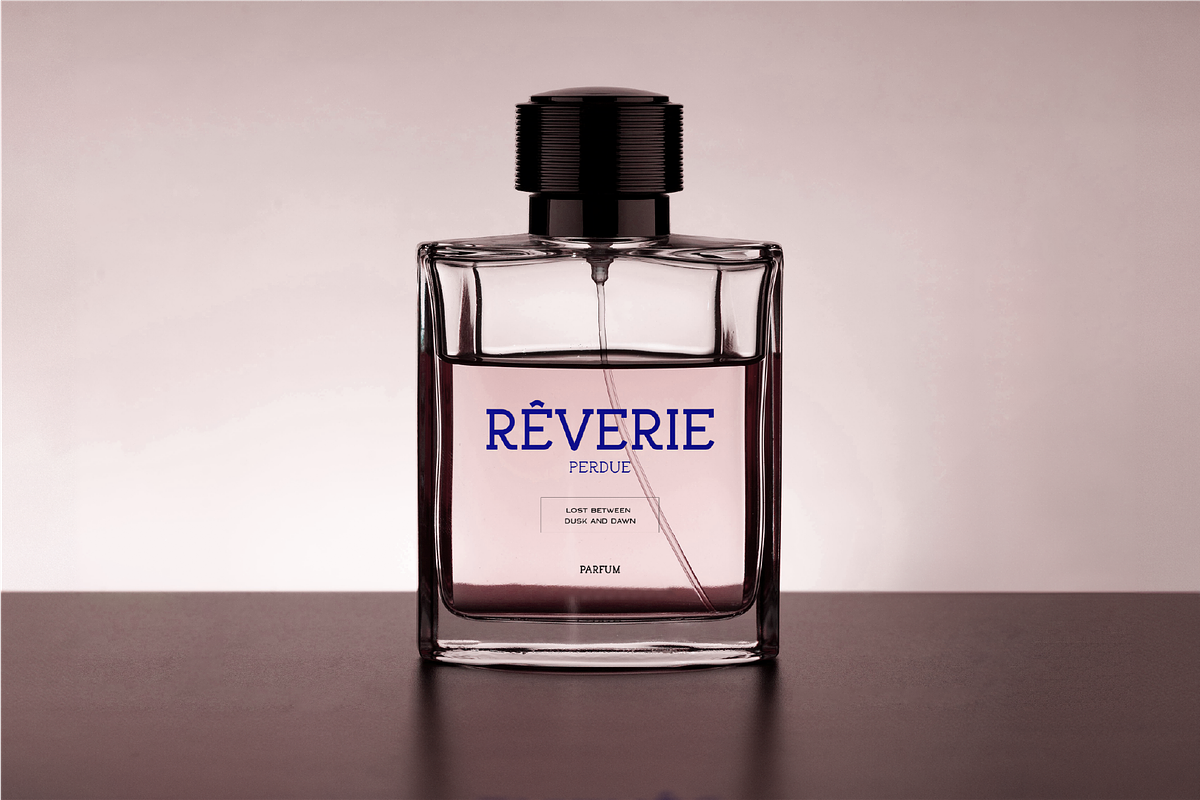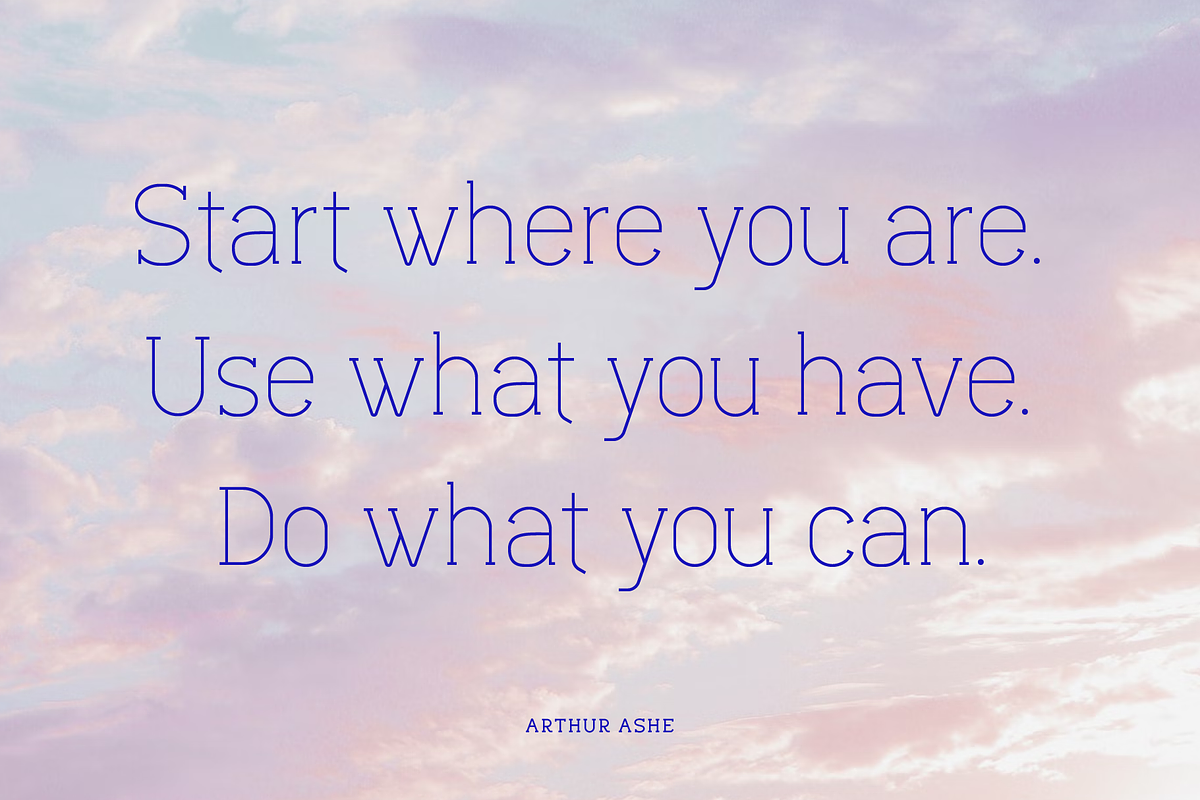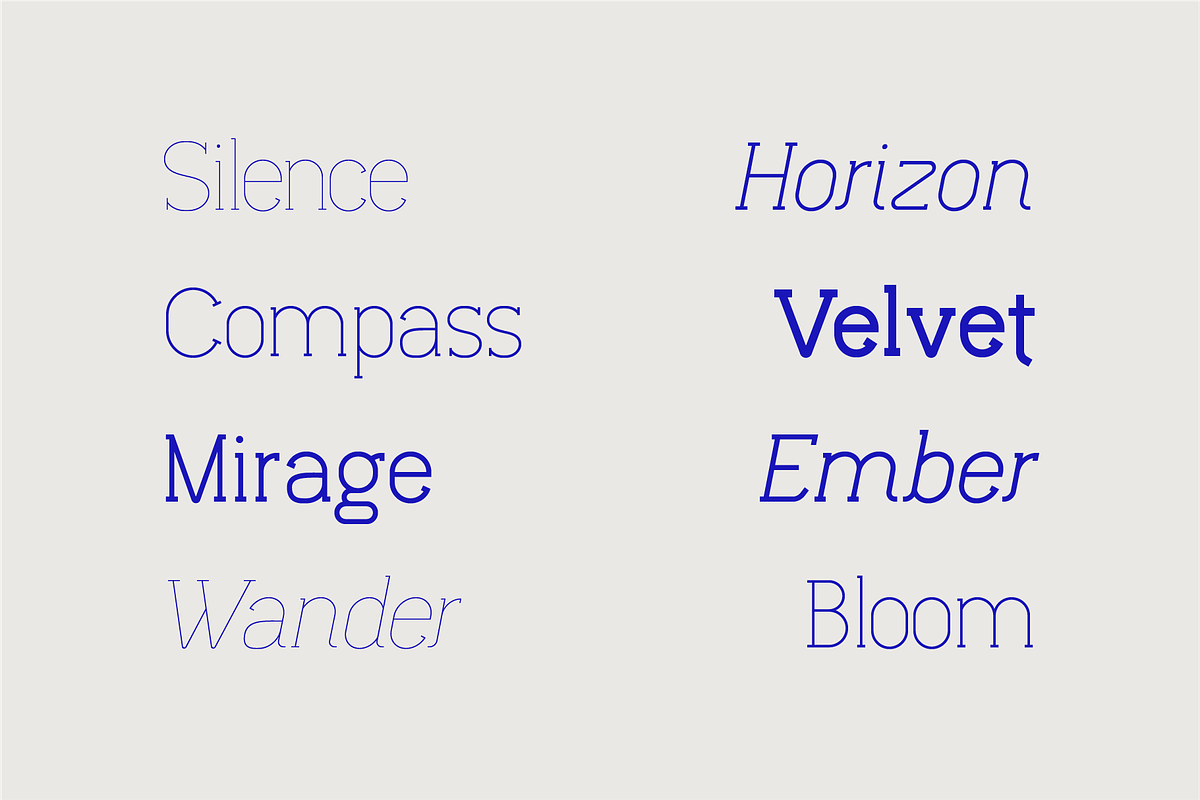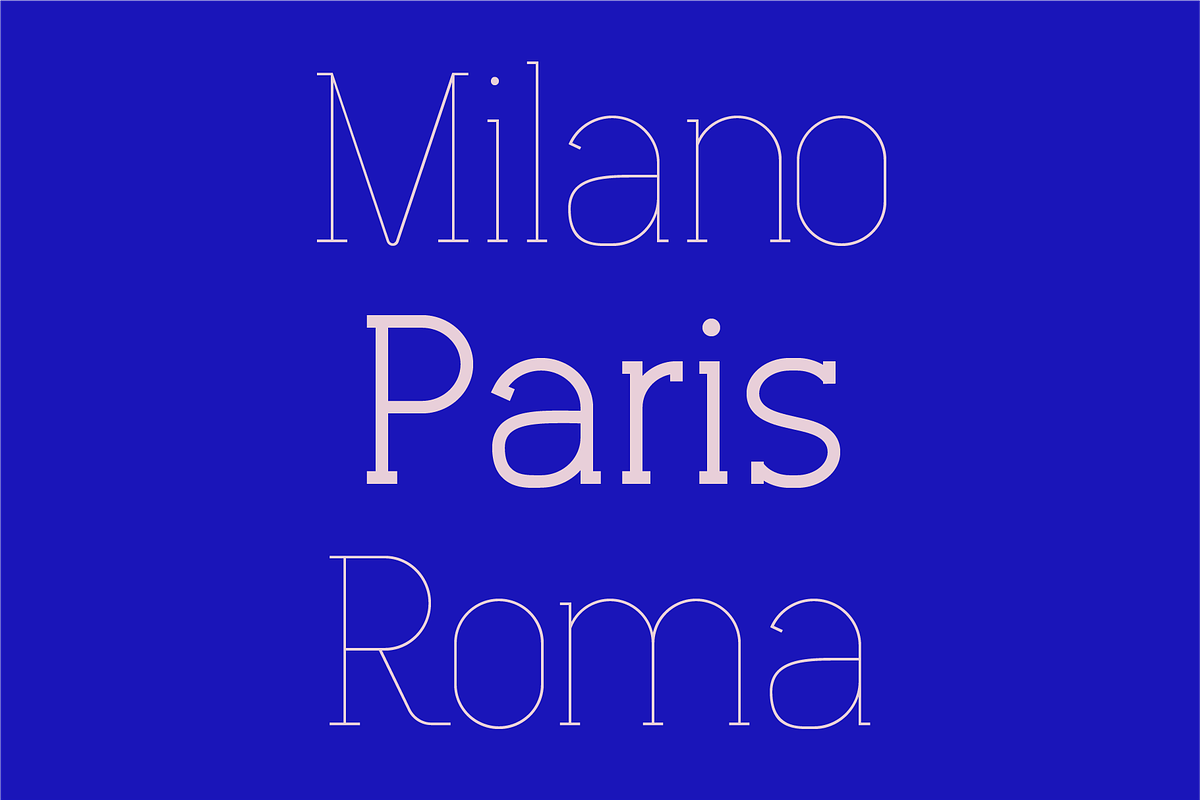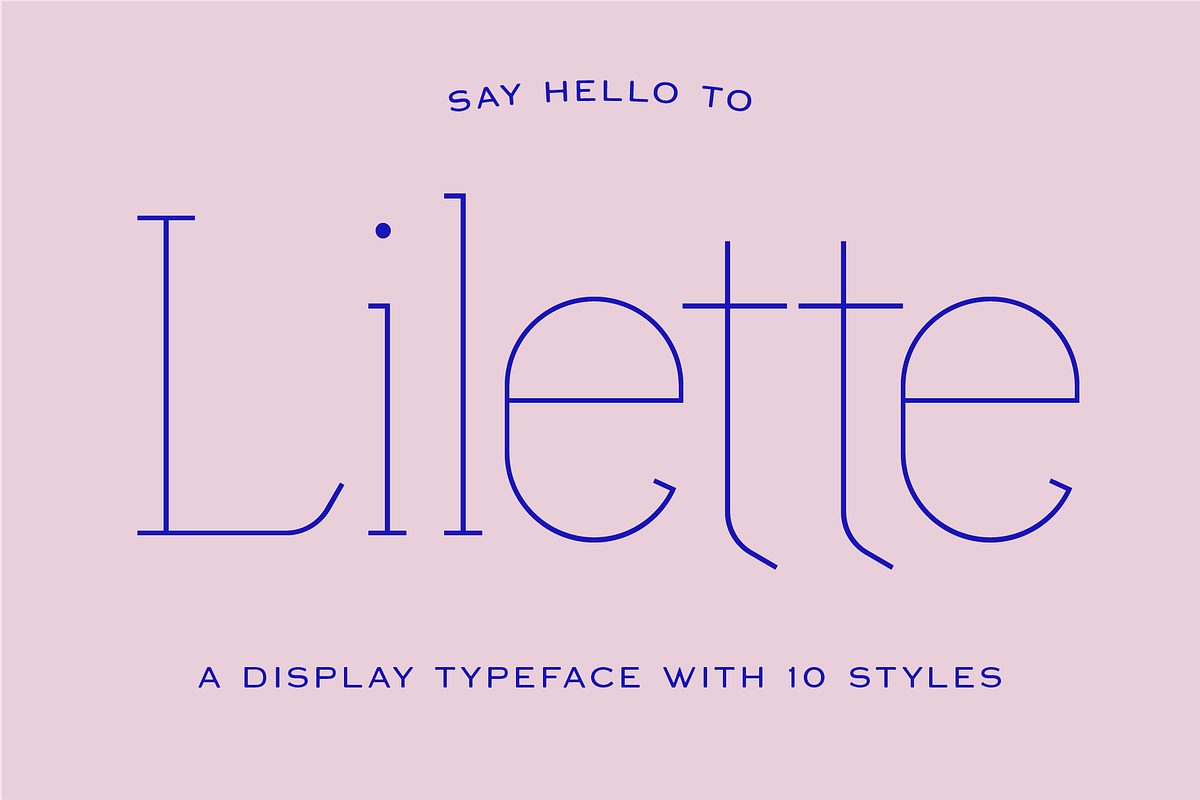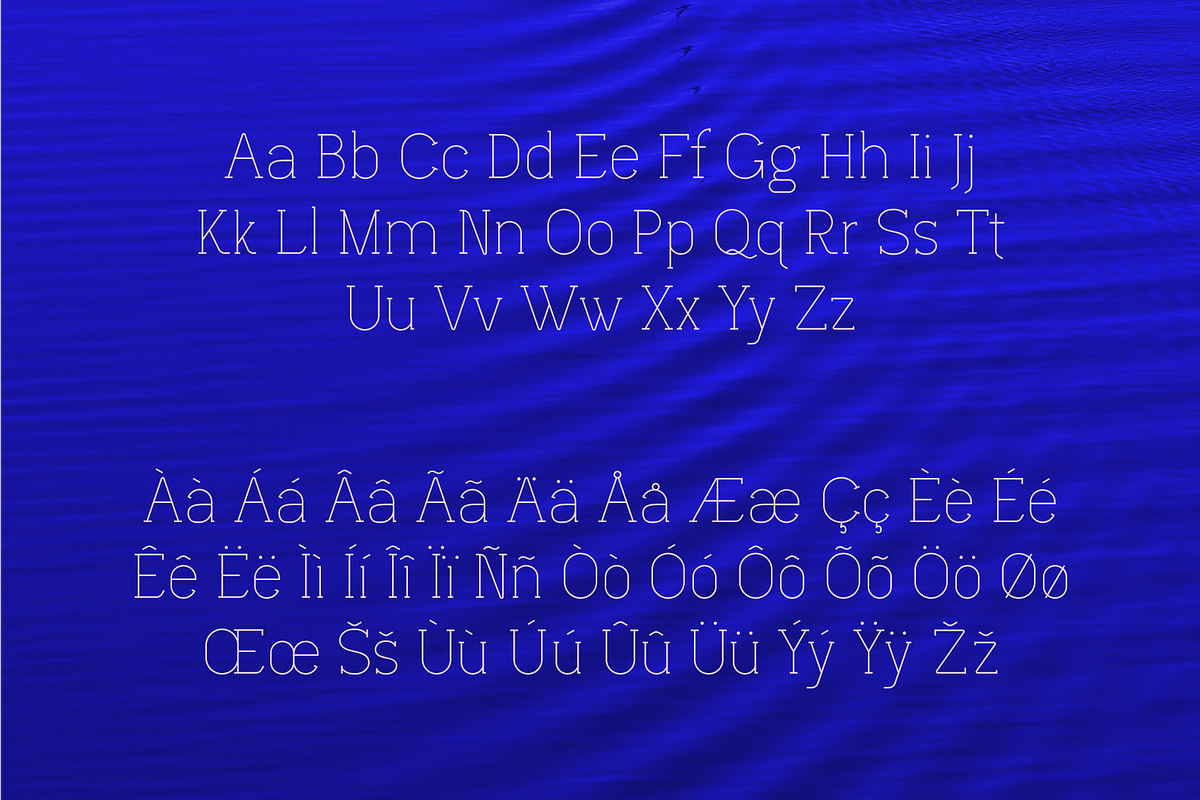
Lilette — A Refined Display Typeface
Lilette — A Refined Display Typeface of Poise and Precision
Lilette is an elegant display typeface that marries geometric precision with delicate, expressive curves. Designed to capture a sense of modern refinement and understated confidence, Lilette offers ten distinct styles ranging from sleek light weights to expressive bolds — each crafted to bring sophistication and clarity to contemporary design.
Design Concept Lilette was designed for brands and creatives seeking a balance between technical structure and human warmth. Its thin strokes, generous spacing, and graceful terminals evoke a quiet rhythm, while subtle quirks in its letterforms lend it personality and charm. The result is a typeface that feels equally at home in luxury branding, editorial design, art direction, and high-end digital interfaces.
Every curve and line in Lilette was drawn to celebrate simplicity and contrast — the meeting of straight edges and soft loops, of modern restraint and timeless elegance.
10 Styles: Thin, Light, Regular, Medium, SemiBold, Bold, and corresponding Italics
Multilingual Support: Covers Latin Extended-A character set
OpenType Features: Ligatures, stylistic alternates, and precise kerning
Optimized for Display Use: Perfect for large titles, magazine covers, fashion branding, and high-impact editorial spreads
Refined Geometry: Balanced proportions with distinctive rhythm and contrast
Personality & Use Lilette thrives in settings where visual grace and modernity meet — from luxury packaging and high-end identity systems to minimalistic digital layouts. Its airy structure and confident lines make it especially suitable for:
Brand identities
Editorial headlines
Posters and covers
Boutique websites
Fashion, art, and lifestyle projects